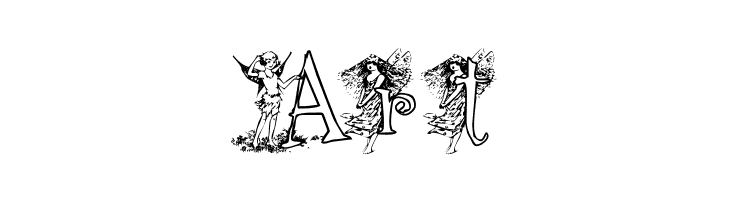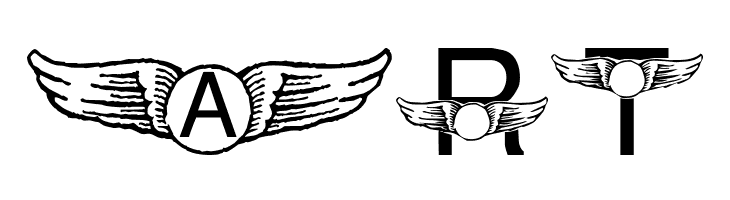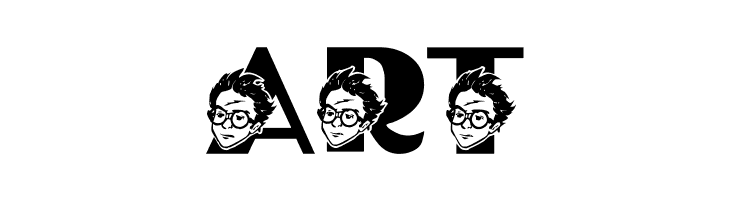
A whimsical, cauldron-themed decorative font with a playful, magical style.
A playful font with characters inside bubbling cauldrons, perfect for magical themes.
A decorative font with intricate fairy-themed embellishments on each letter.
A decorative font with winged embellishments, ideal for fantasy-themed projects.
A playful, character-filled font with a whimsical, magical theme.
A decorative font with intricate, vine-like embellishments and a mysterious, enchanting style.
A whimsical, cursive font with playful loops and magical elements.
A decorative font with characters on 3D books, ideal for fantasy themes.
A decorative font with thorny embellishments and mystical swirls, ideal for occult-themed designs.
A mystical, rune-inspired font with geometric and magical elements.